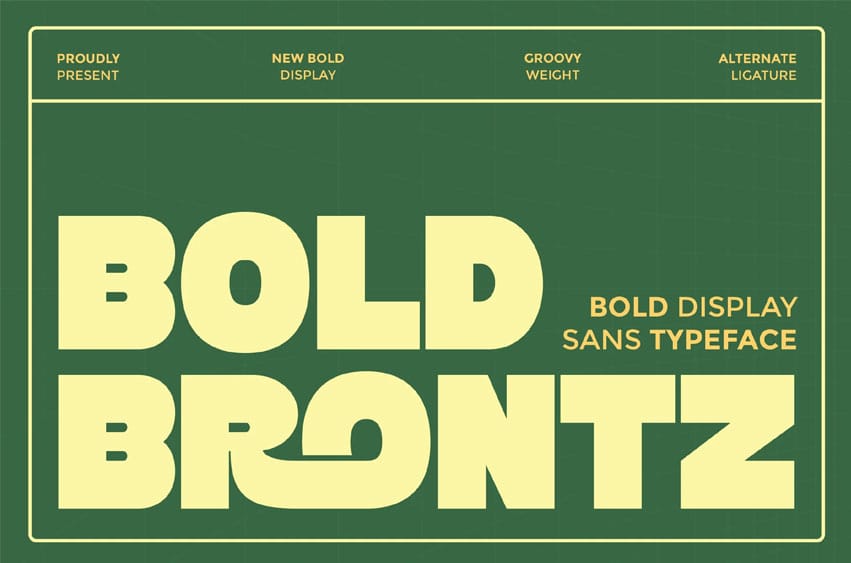
Brontz Font is a chunky and confident display sans typeface, blending retro charm with modern boldness. Its heavy weight, smooth curves, and playful ligatures create a groovy yet powerful presence, perfect for eye-catching titles, branding, posters, and packaging. Whether you’re aiming for vintage flair or contemporary pop culture vibes, Bold Brontz delivers impact, personality, and style in every letter.
- Uppercase alphabet A-Z
- Lowercase alphabet a-z
- Numbers 0-9
- Some punctuation
- Alternates & Ligatures